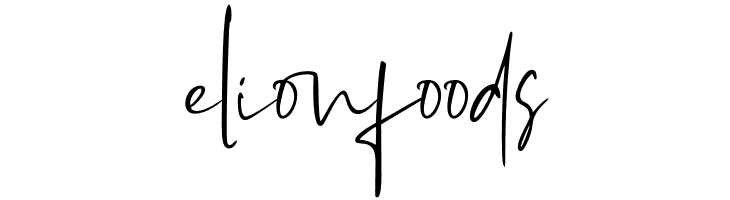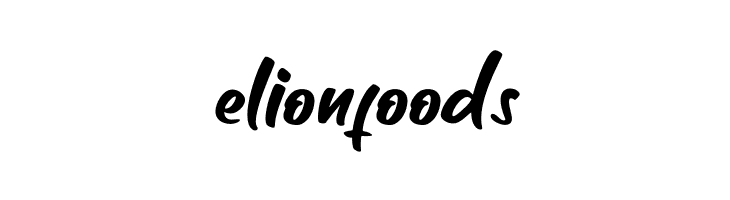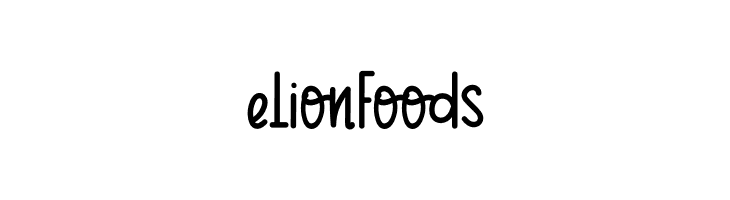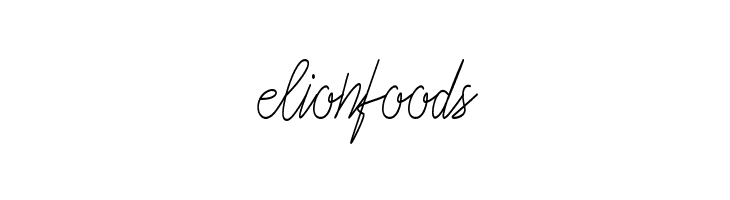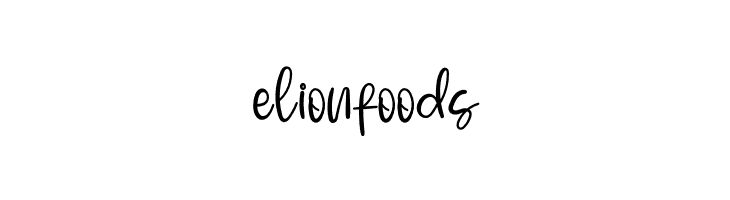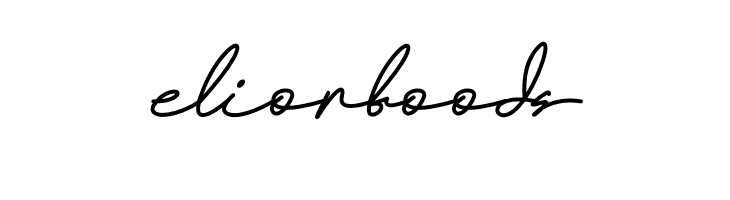
A bold, rugged font with a gothic, hand-carved appearance.
A flowing, cursive font with elegant, handwritten style.
A dynamic handwritten font with fluid, cursive strokes and artistic flair.
A bold, handwritten-style font with a dynamic and expressive appearance.
A playful, hand-drawn font with tall, narrow letters and a whimsical style.
A fluid, handwritten-style font with elegant, connected letters.
A playful, casual handwritten font with fluid strokes and a modern feel.
A fluid and elegant cursive font with a handwritten style.
A bold, italic font with a dynamic, hand-crafted style and strong, angular lines.